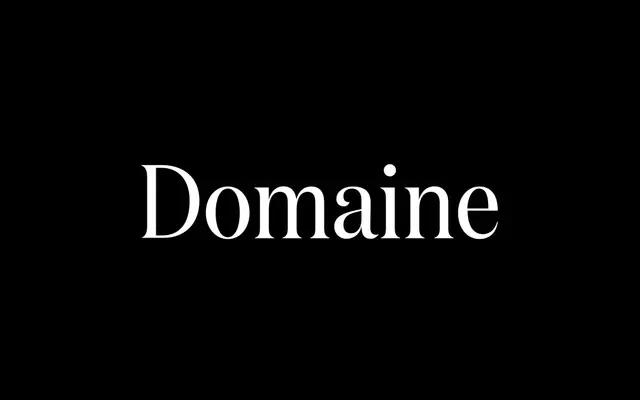
Domaine Display Condensed
Klim Type Foundry · Kris Sowersby · 2013
A condensed display serif holding Domaine's triangular serifs and hooked terminals at tight measures for fashion and editorial mastheads.
A sharp condensed display serif by Kris Sowersby, the tightest cut in the Domaine Display system, with bracketed triangular serifs, hooked terminals and italics inspired by Deberny & Peignot's Labeurs Ordinaires Série. Twelve styles run from Regular to Black with matching italics, made to keep their elegance when set in narrow columns or stacked over images. Frequently paired with Domaine Text and Söhne in fashion, wine and editorial branding.
Klim classifies it as Modern: Transitional/Latin; the condensed display cut of Domaine, with bracketed triangular serifs, hooked terminals and italics drawn from Deberny & Peignot's Labeurs Ordinaires Série.